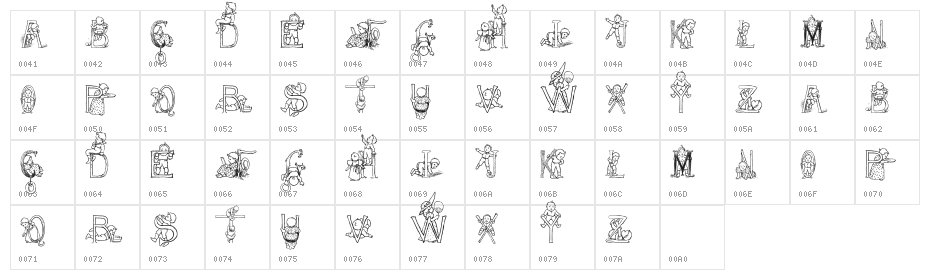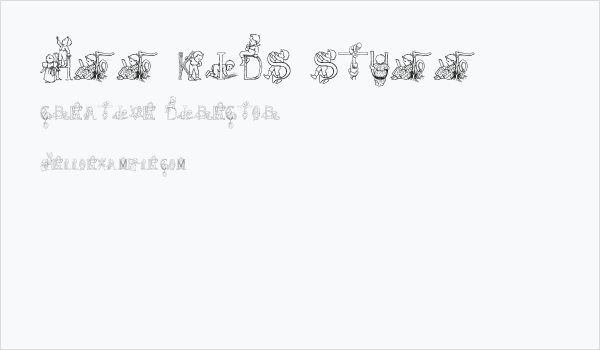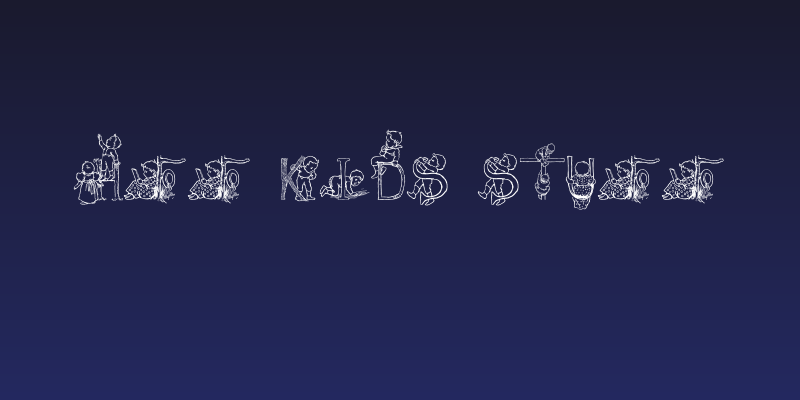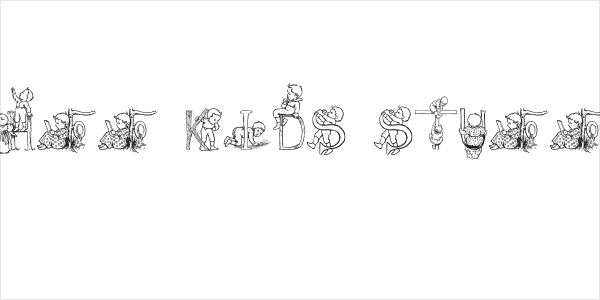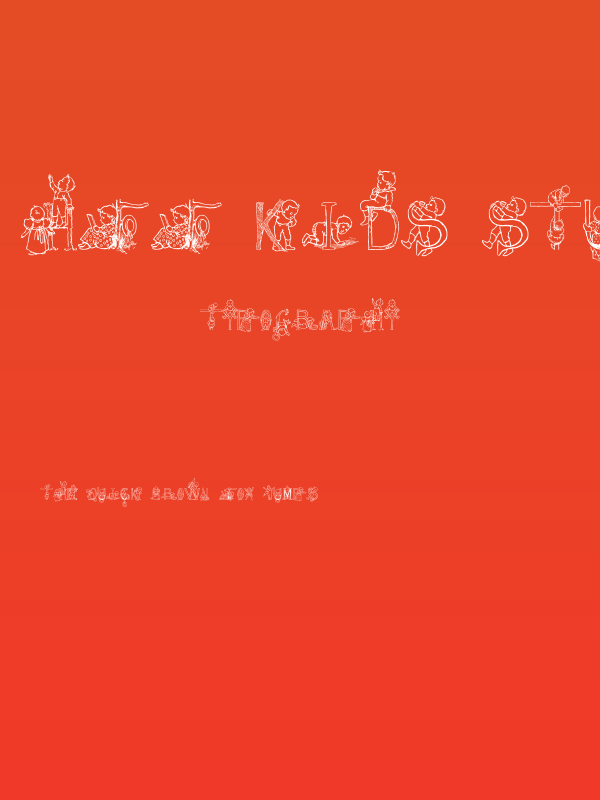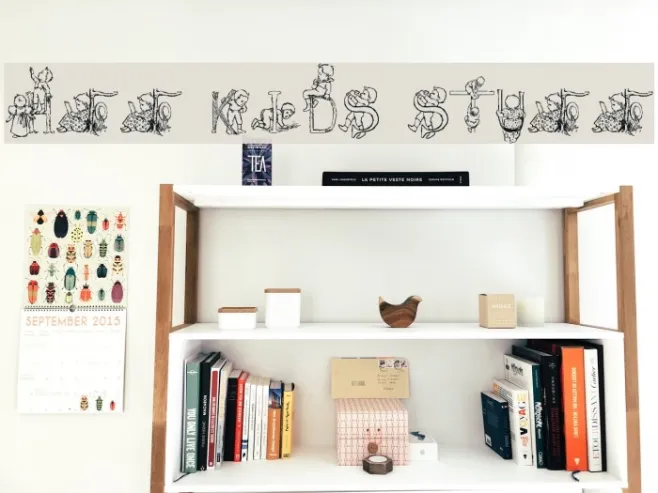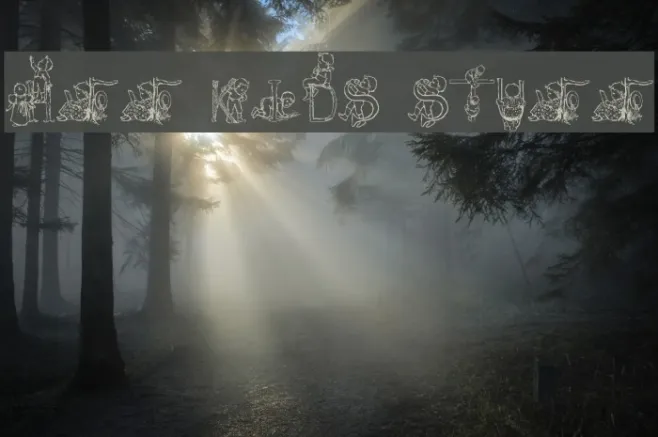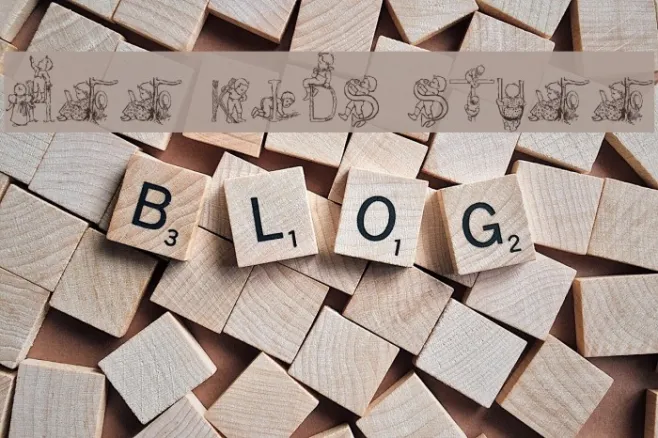
HFF Kids Stuff Font
HFF Kids Stuff Description
This playful and whimsical font features each letter intricately designed with charming illustrations of children and toys. The characters are adorned with delightful scenes that evoke a sense of nostalgia and childhood wonder. Each letter is unique, incorporating elements like children playing, animals, and various playful objects. The overall design is detailed and decorative, making it ideal for projects that aim to capture a youthful and imaginative spirit. The font's intricate details and illustrative style make it stand out as a decorative choice.
| Proposed Projects | Ideal for children's book covers, playful invitations, educational materials, and nursery decor. |